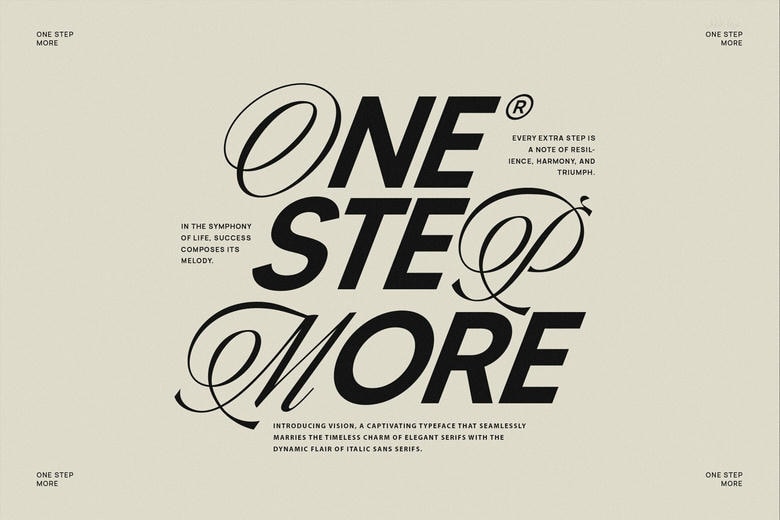
One Step More Font
One Step More Modern Sans Combination is modern sans-serif two-font pack with clean, simple design. It combines simplicity with a little touch of modern twist, which allows its use in different projects. Both these fonts are clean and simple and blend in very well to make posters, logos, social media promotional items, etc with a professional outlook. Make your creations and projects stand out even more with this simple to use and effective font pair.
One Step More Sans Serif Font